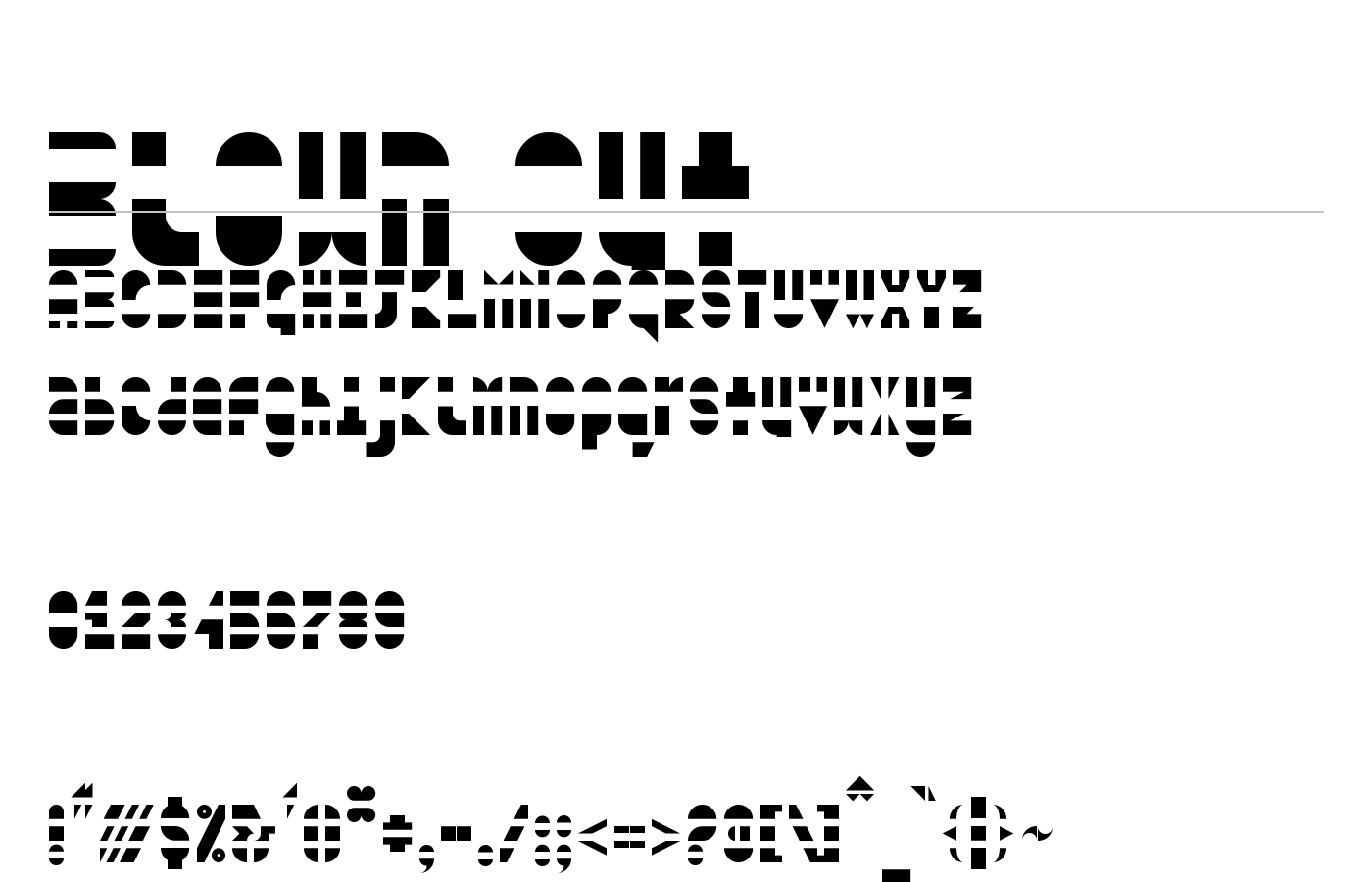
Blown Out is a bold, modern sans serif font characterized by its striking, fragmented letterforms that create a sense of dynamic disruption. Its heavy weight and high contrast between solid shapes and empty spaces give it a futuristic and edgy personality, making it ideal for eye-catching headlines, logos, and artistic projects seeking a daring, contemporary vibe. This font works best where strong visual impact is needed, such as posters, branding, and digital media.
Blown Out Font
About Blown Out Font